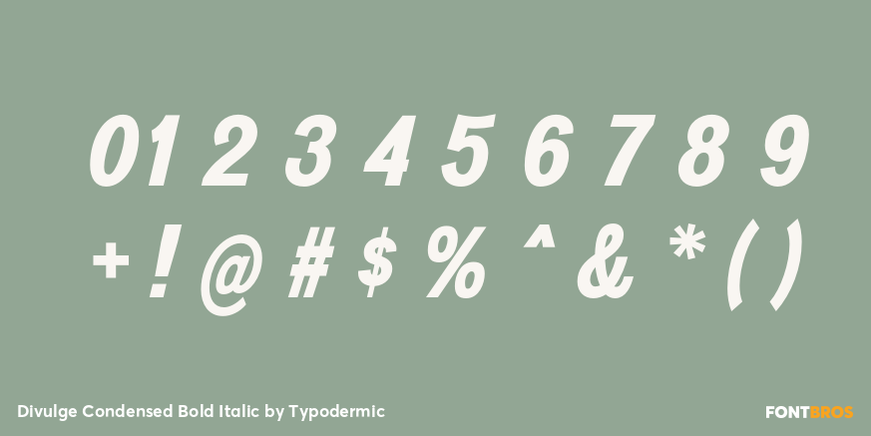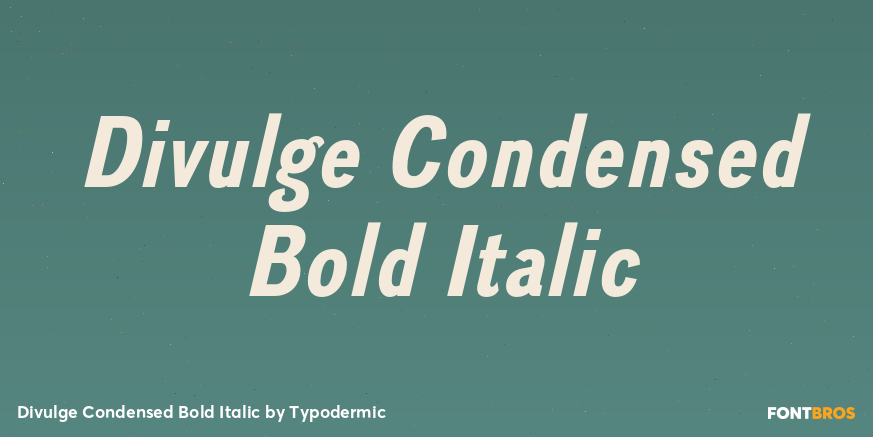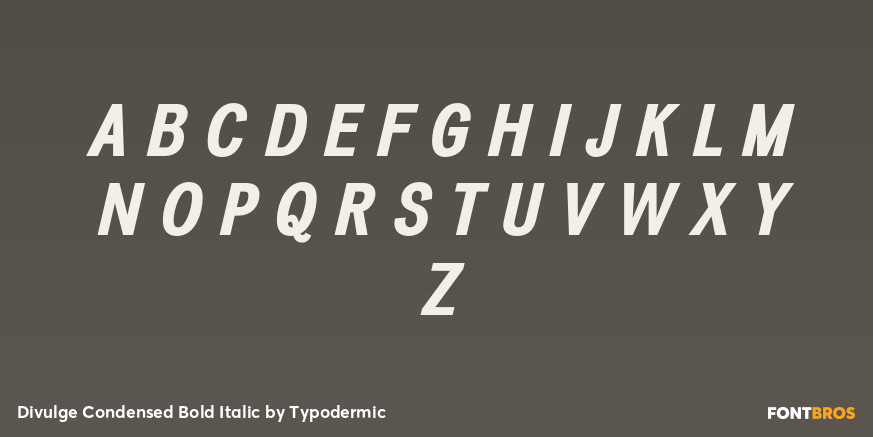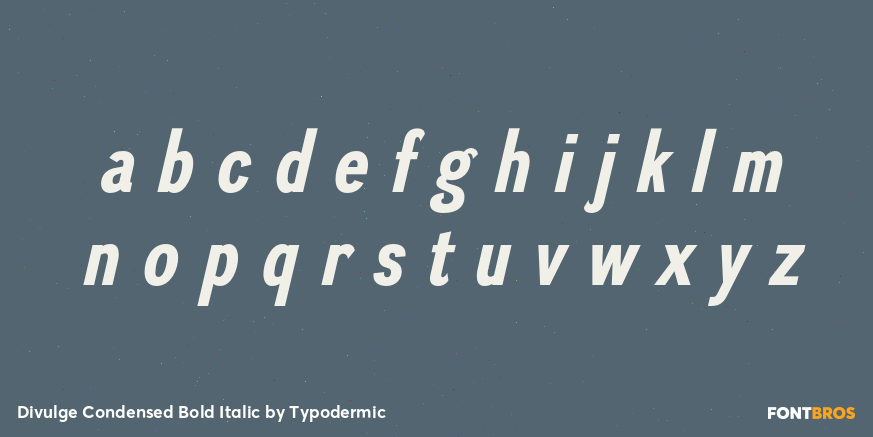
Divulge Condensed Bold Italic
Divulge takes its cues from the period before grotesque sans-serifs settled into familiar twentieth-century conventions. Early examples could be oddly proportioned, soft in unexpected places, and less systematic than the later models that came to define the genre. Divulge borrows some of that uncertainty without reproducing a particular historical typeface; it is a contemporary design that happens to be very comfortable around old-fashioned typography.